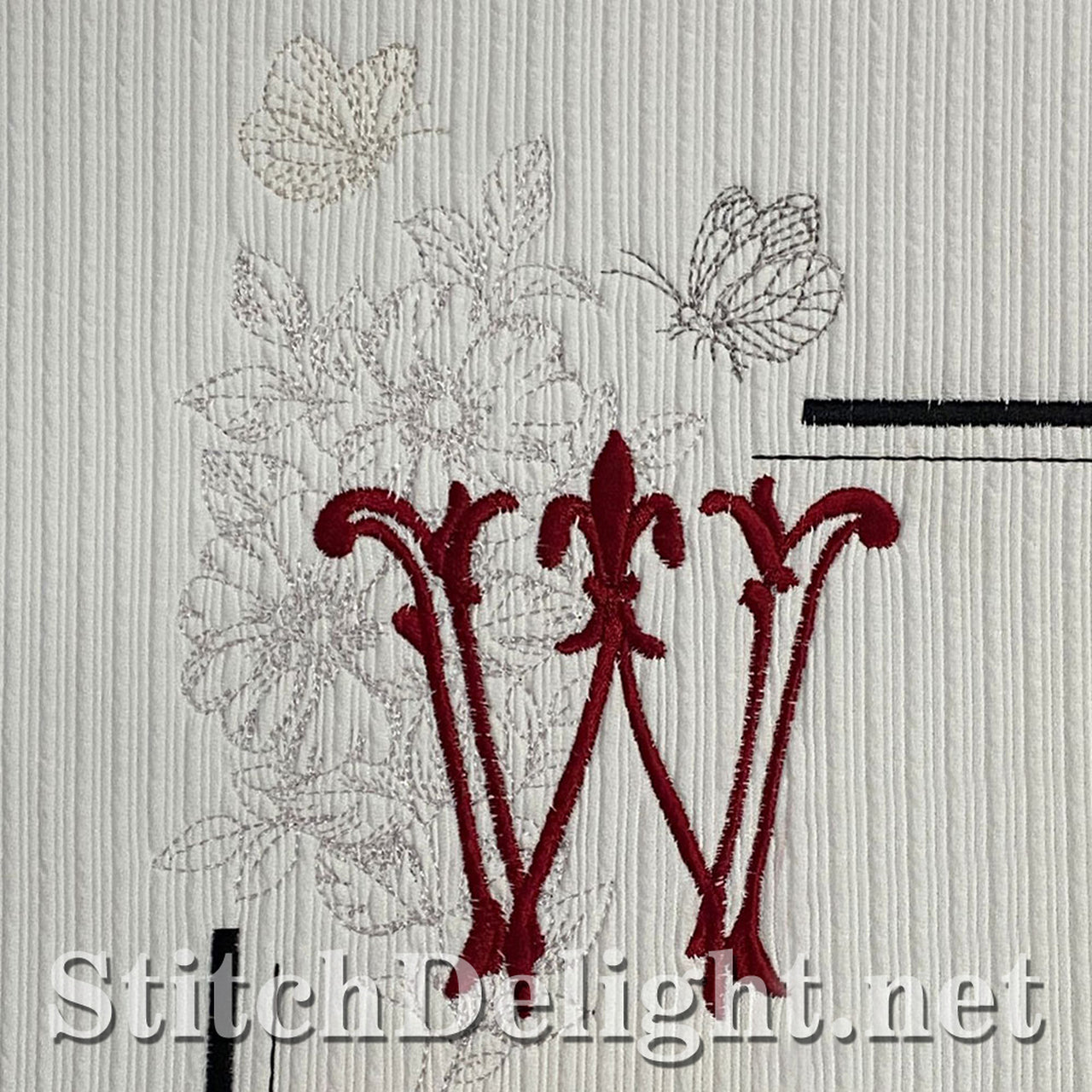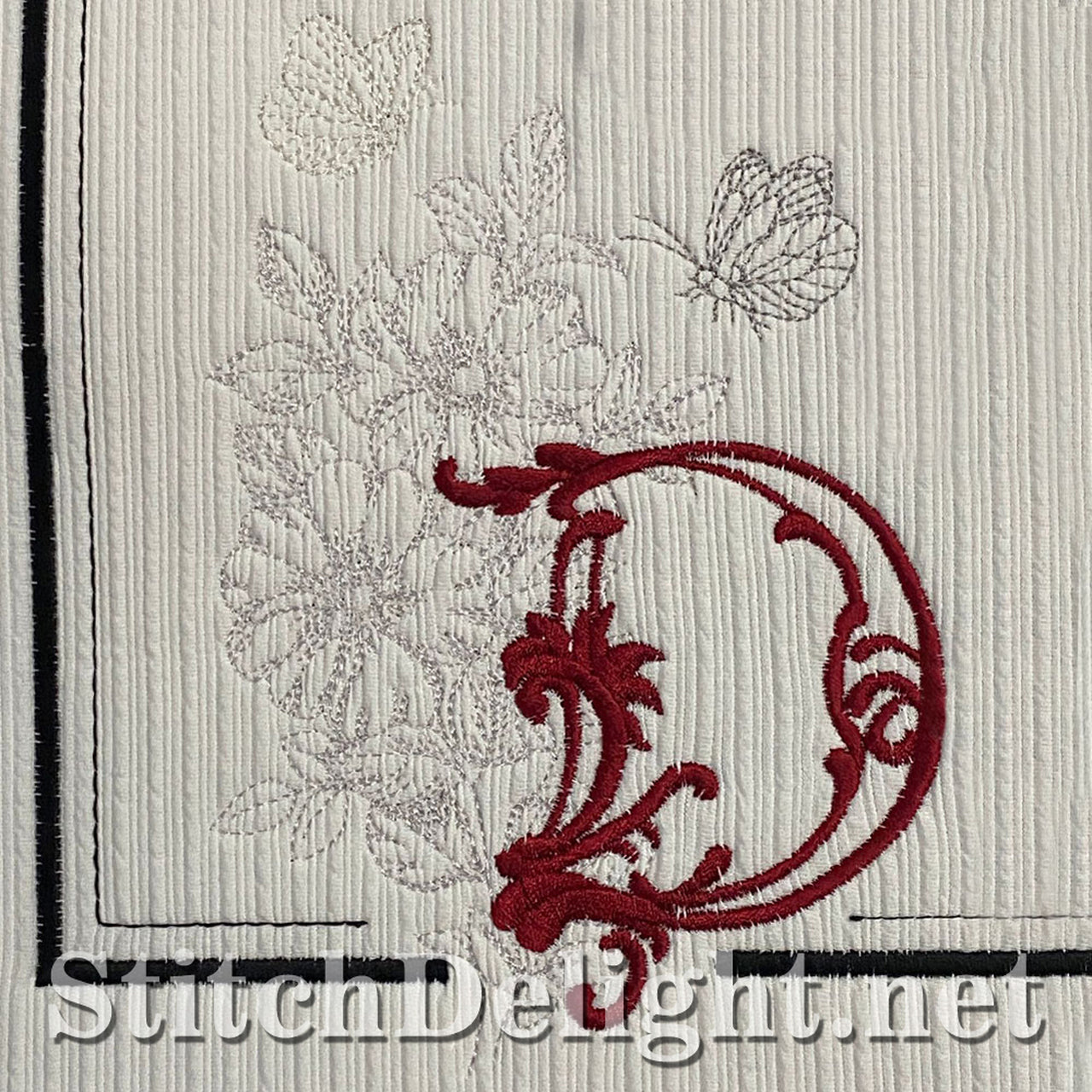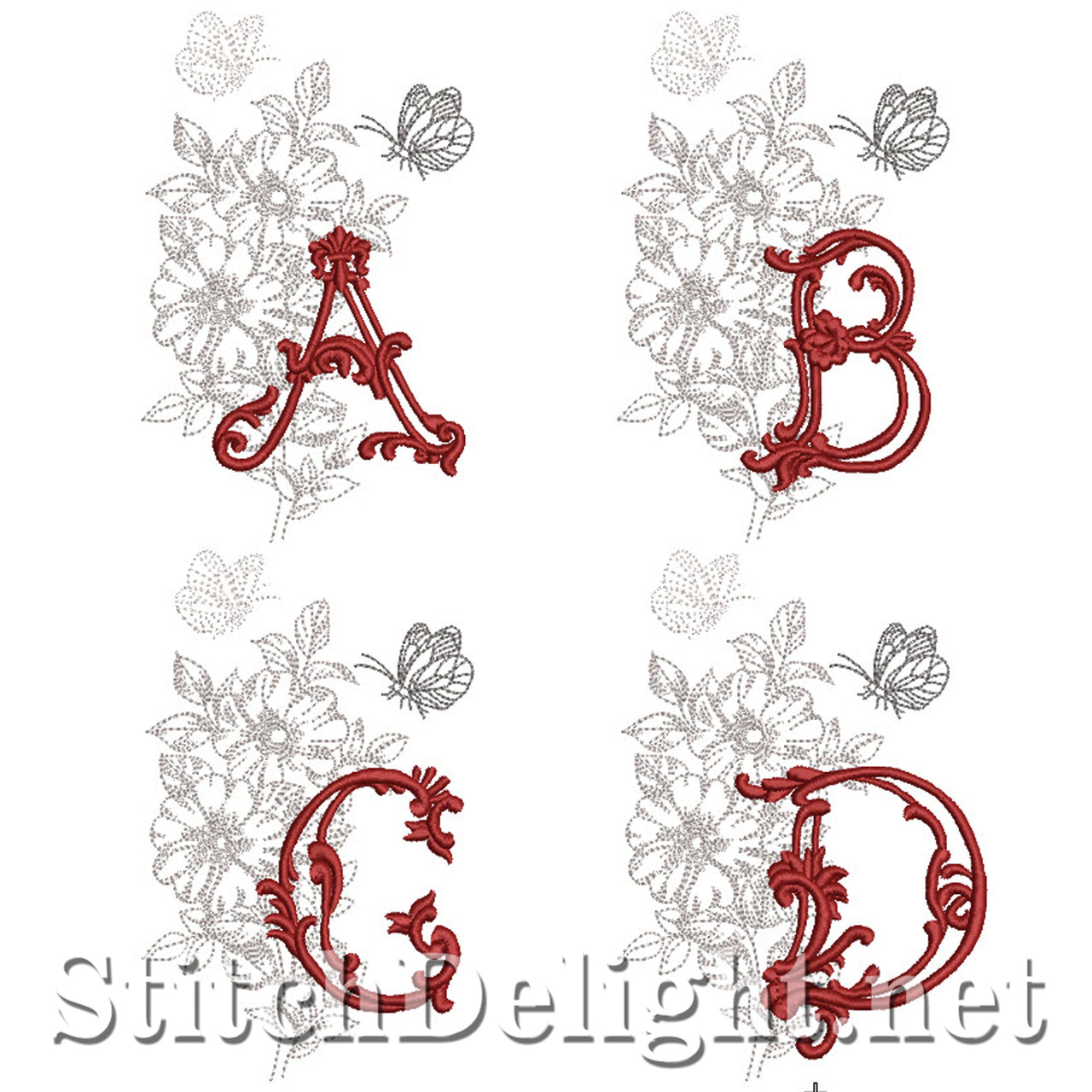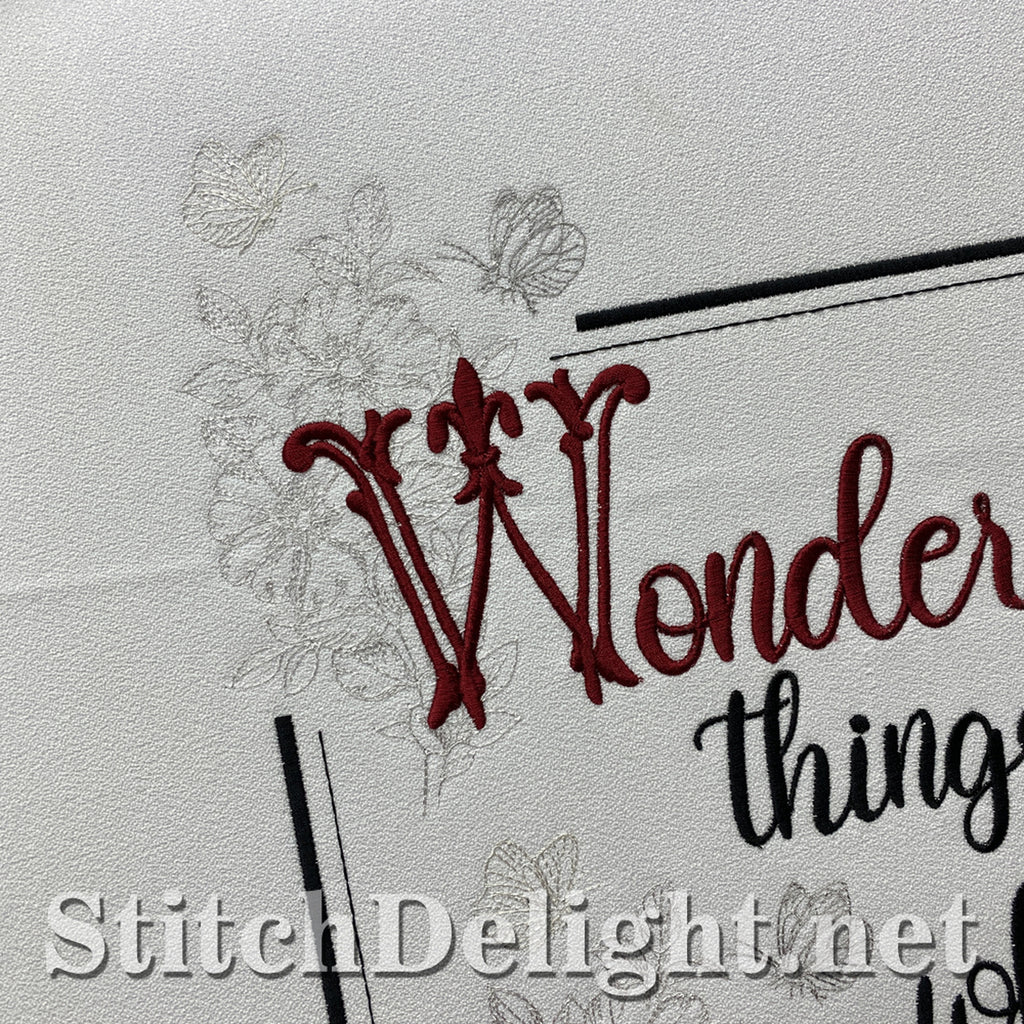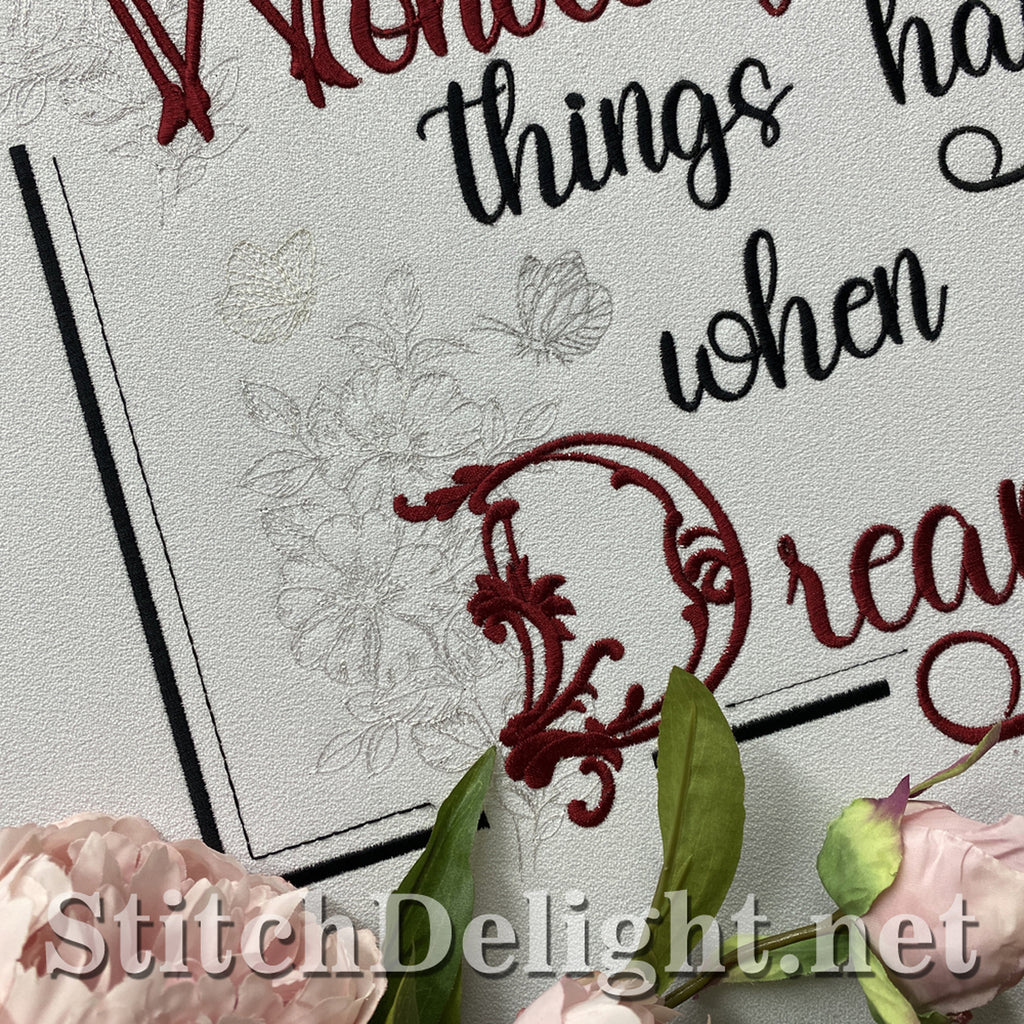
This stunning scroll font has loads of detail making it perfect for custom sayings and scatter pillows on the couch. Each letter has 4 colours, allowing you more freedom to play around with colour to get that perfect match for your project.